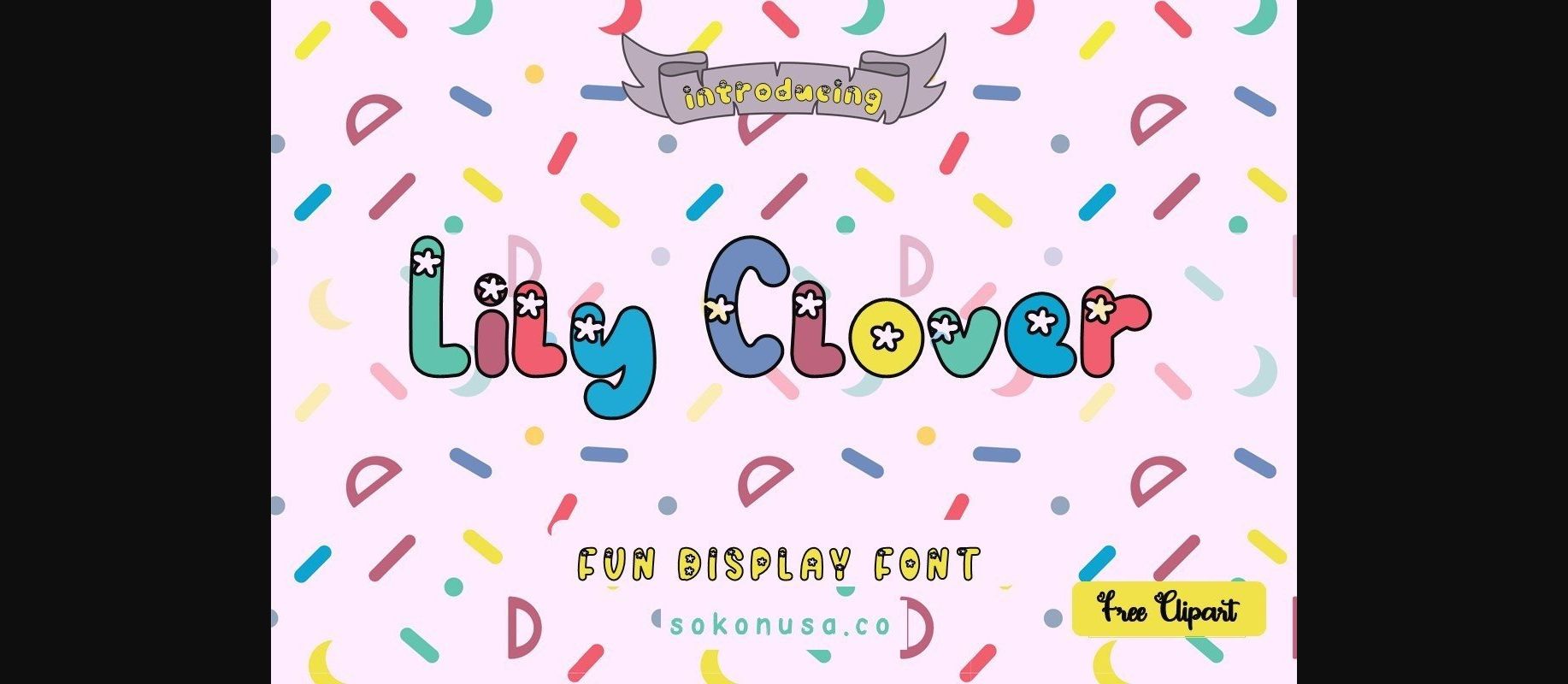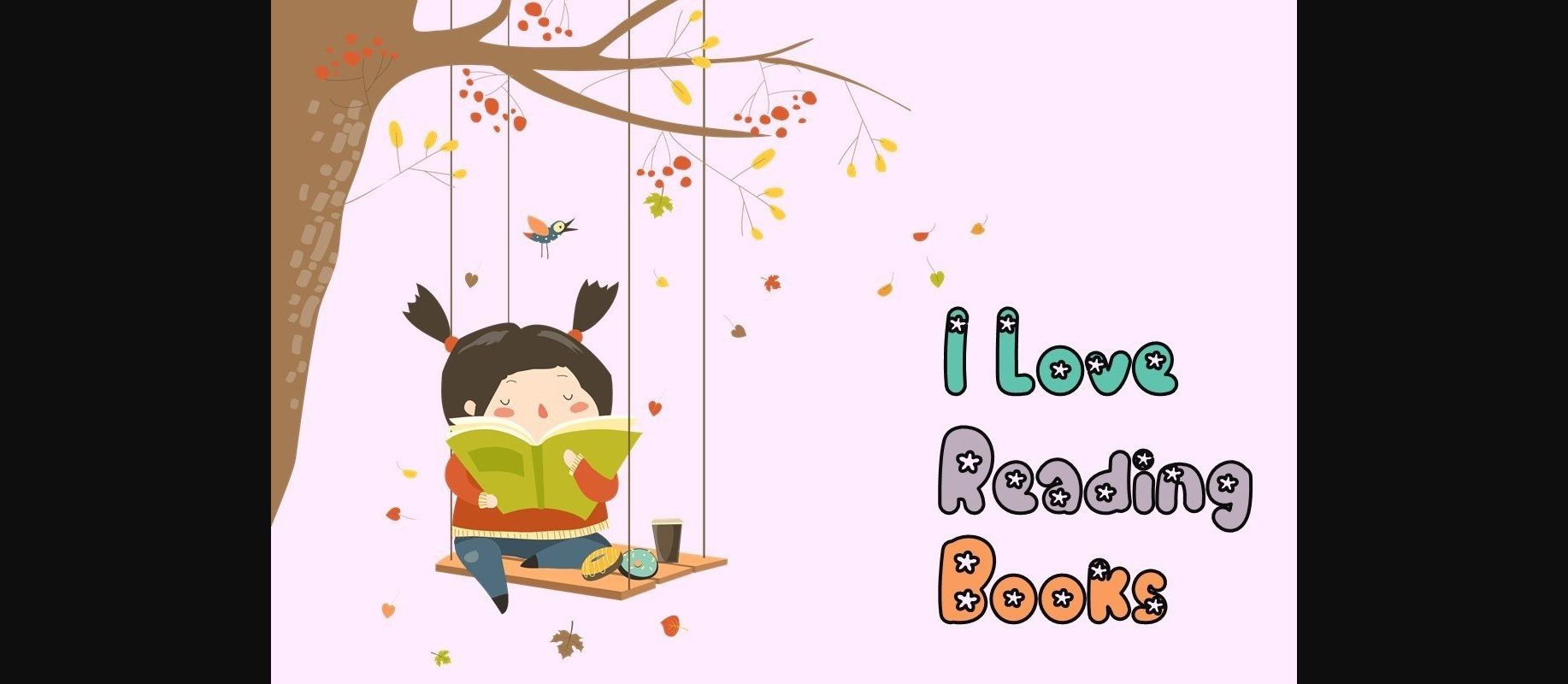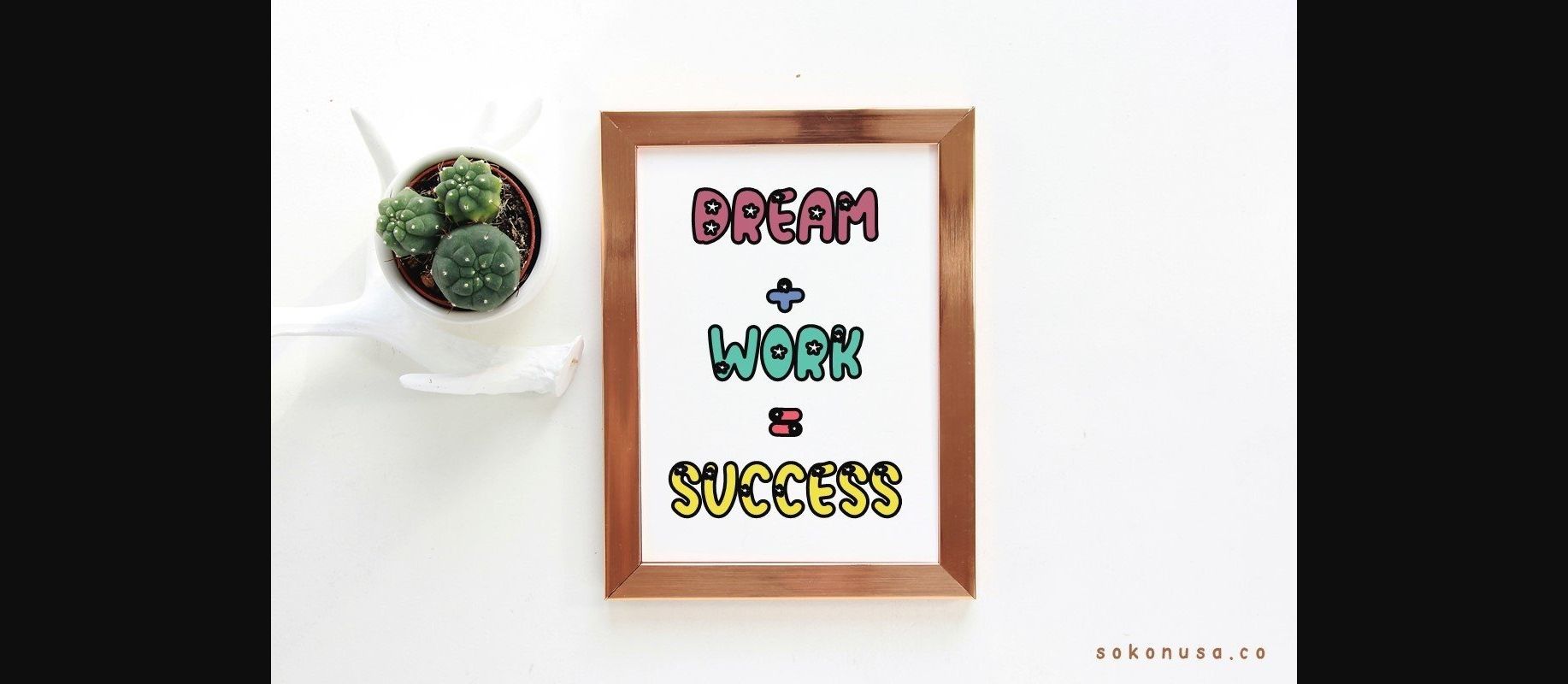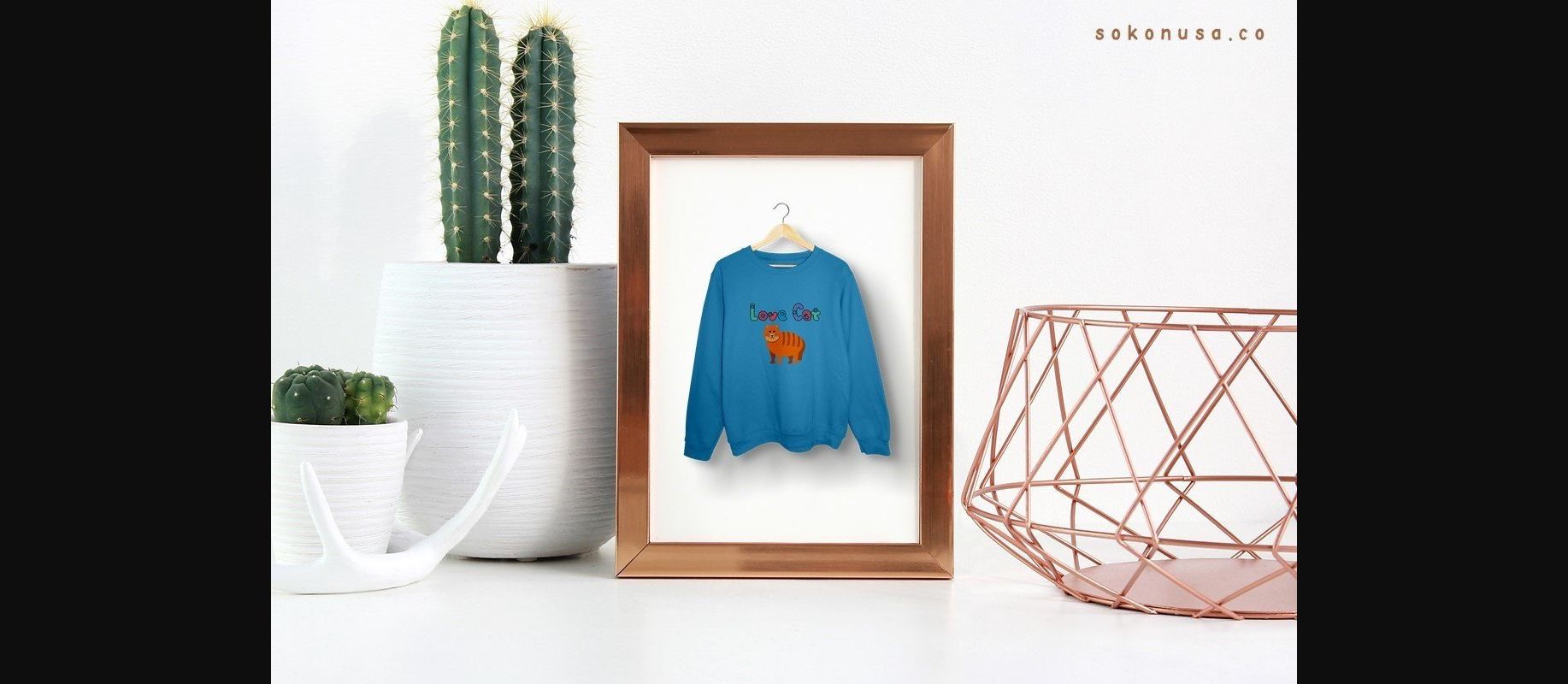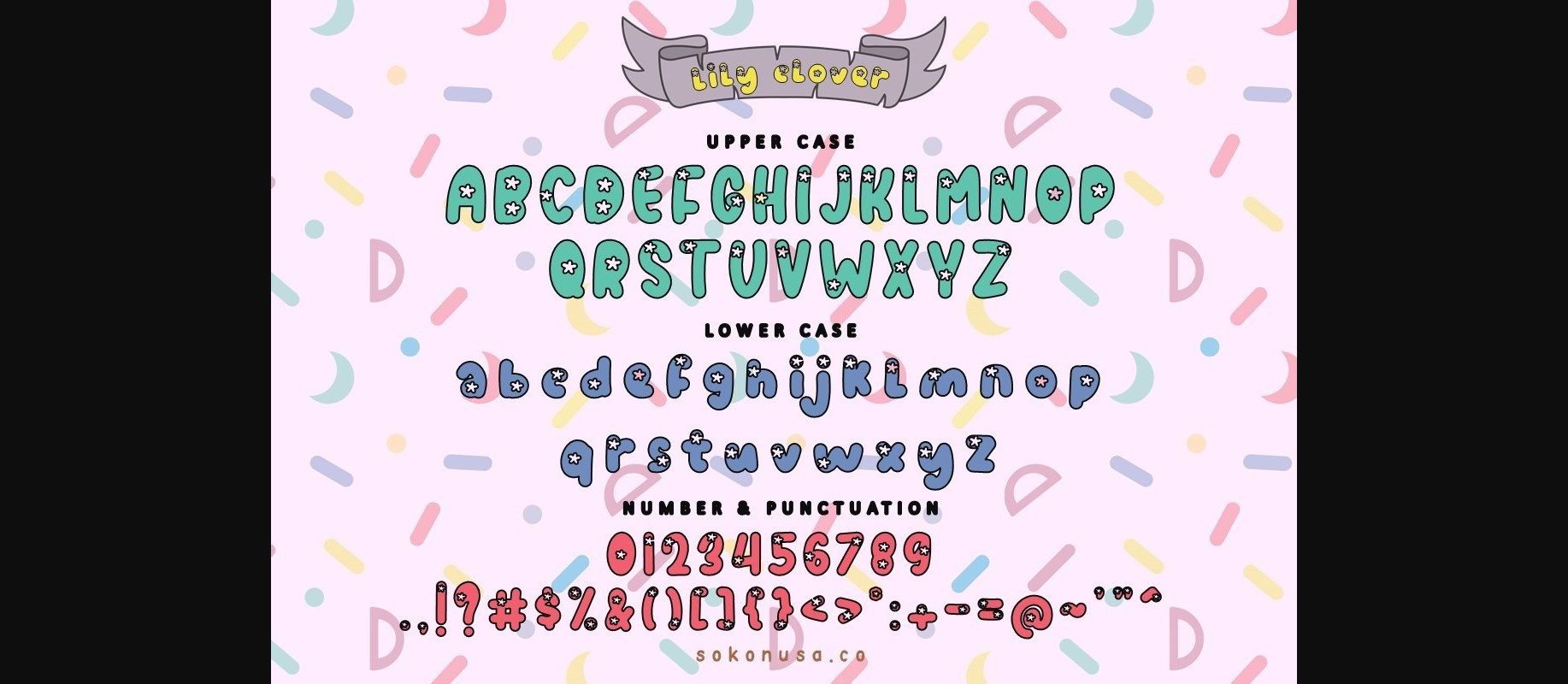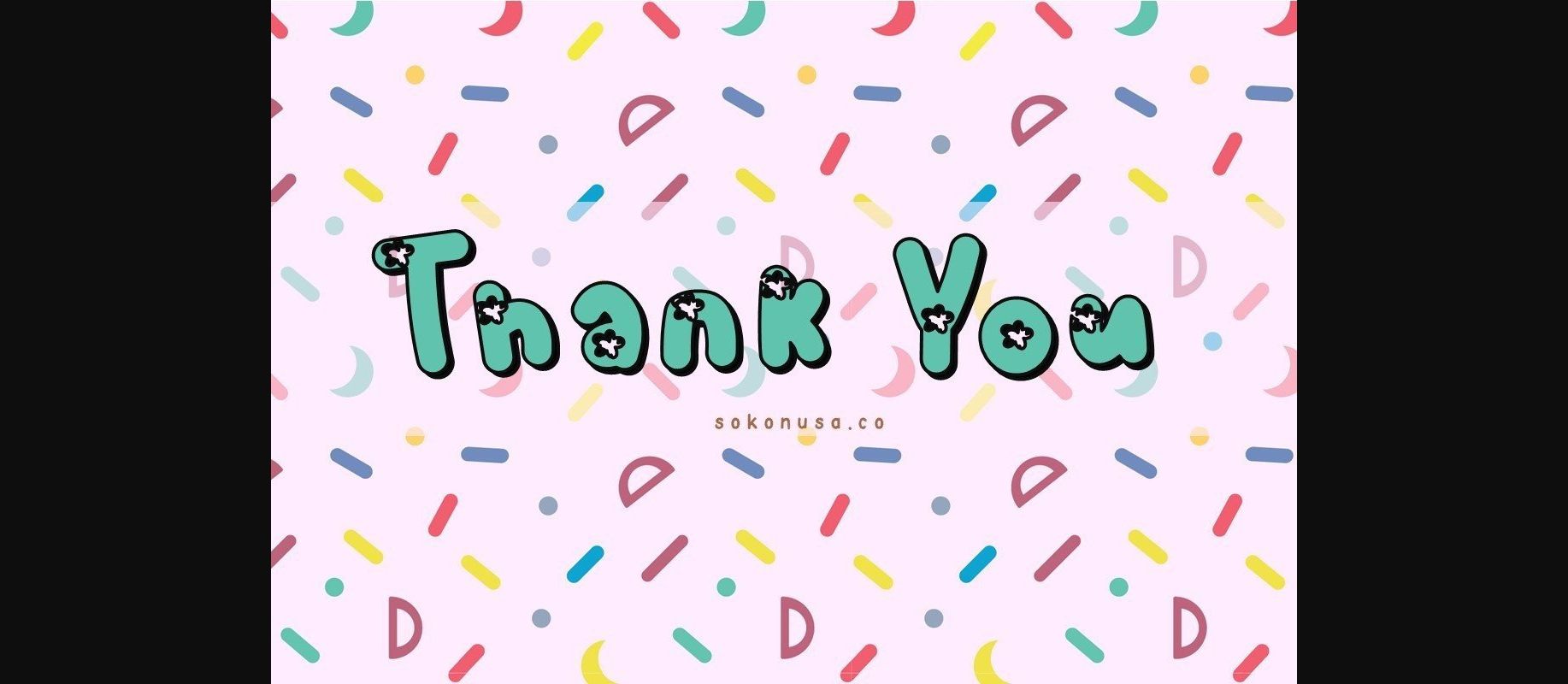
Lily Clover Font
About Lily Clover Font
Lily Clover is a playful and cute display font, especially combining bright colors. This font is perfect for children-themed designs, invitations, comics, Invitation Card, Birthday cards, and something really fun for your project.
This font will be an amazing choice and take your design to be playful.